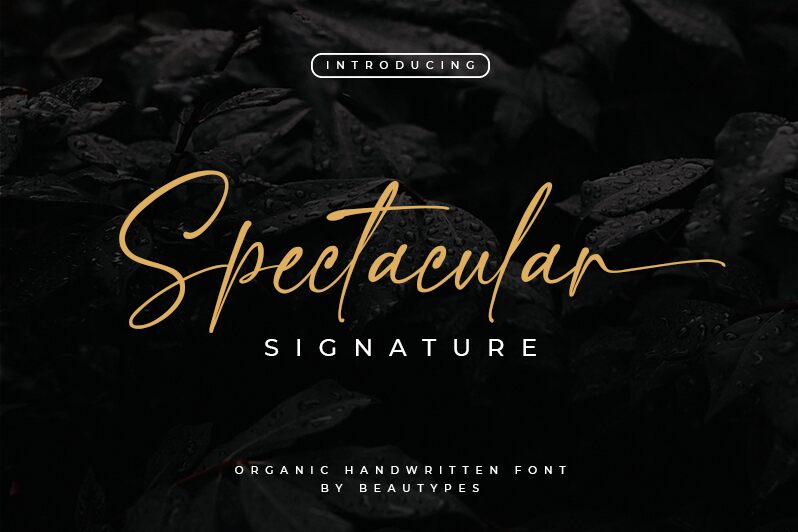
SpectacularSignature
Say hello to Spectacular Signature font! Designed by Beautypes, this light-weighted handwritten font is perfect for adding a touch of elegance and sophistication to your designs. The fluidity of the letters in this typeface create an organic and natural feel that will complement any project. Whether you're designing wedding invitations, logos, or branding materials, Spectacular Signature is an excellent choice. This font exudes a timeless beauty that will make your designs stand out from the crowd. So why not add a touch of class to your next design project with Spectacular Signature?